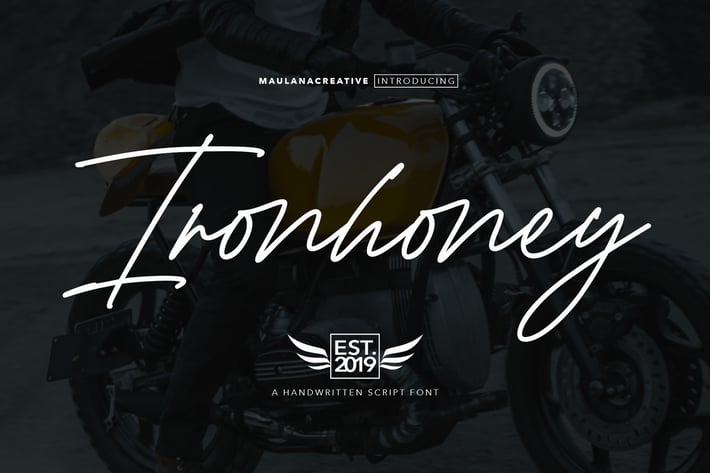
Ironhoney Signature Font
Introduce, my name is Ironhoney Typeface, I was made by authentic handwriting. I made it because want to make it to easier create a signature. You have the advantage of making a beautiful logo, beautify a t-shirt design, and you can make it easier of work on create packaging design, and more.